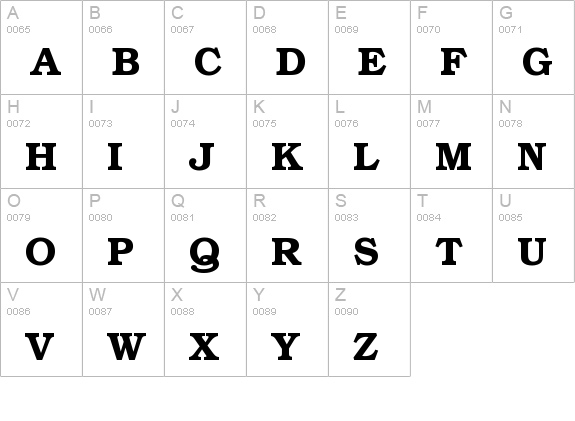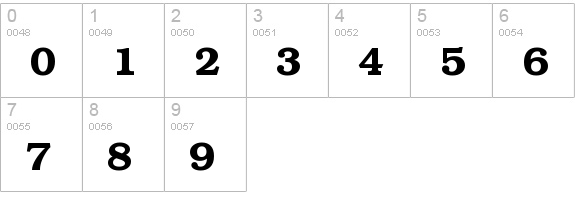
Book-Demi is a comfortable, highly readable variant in the Book typeface family \xE2\x80\x94 well suited to long-form body text, articles, and editorial content.
Book-Demi font is a versatile and modern typeface that exudes elegance and sophistication. Its bold and sturdy appearance makes it perfect for headlines, titles, and branding projects. With its clean lines and balanced proportions, Book-Demi font is both eye-catching and easy to read, making it an ideal choice for a wide range of design projects. And the best part? Book-Demi font is completely free to download at FontsMarket.com! This means you can add a touch of class to your designs without breaking the bank. Don't miss out on this fantastic opportunity to elevate your typography game with the stunning Book-Demi font. Download it now and let your creativity soar!